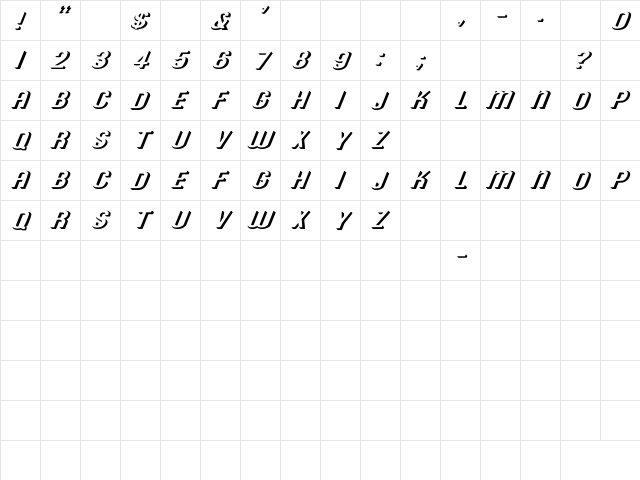
RoundedRelief Ex Italic Italic Font Preview
Design Context for RoundedRelief Ex Italic Typeface
RoundedRelief Ex Italic softens its letterforms with rounded terminals, giving it an approachable, friendly quality that works well in consumer-facing and digital contexts. The dynamic lean of this cut emphasises speed and emphasis in any layout.
A natural fit for tech startups, health and wellness brands, children's products, and friendly consumer apps.
Font Pairing: Pairs well with a rounded or humanist sans for body copy, maintaining the friendly tone without relying on RoundedRelief Ex Italic to carry extended reading.
Pro Tip: Pair RoundedRelief Ex Italic with a geometric sans for a balanced system — the rounded softness works as a warm counterpoint to harder-edged companions.